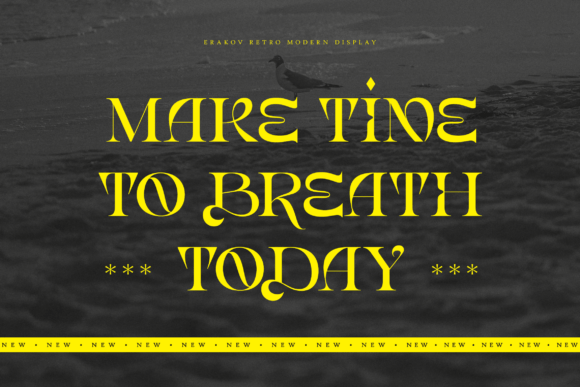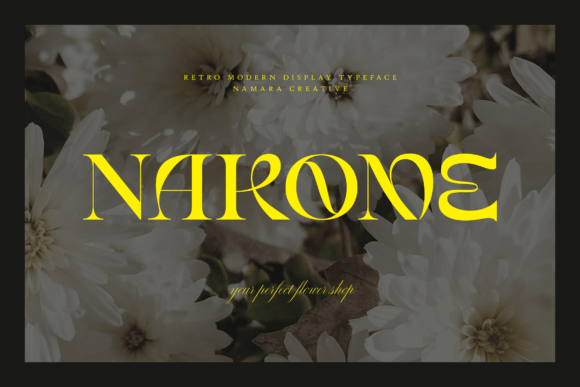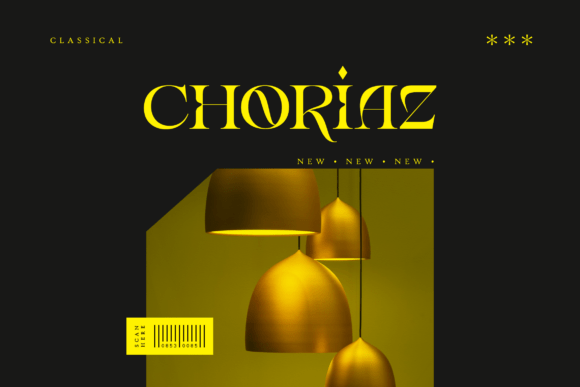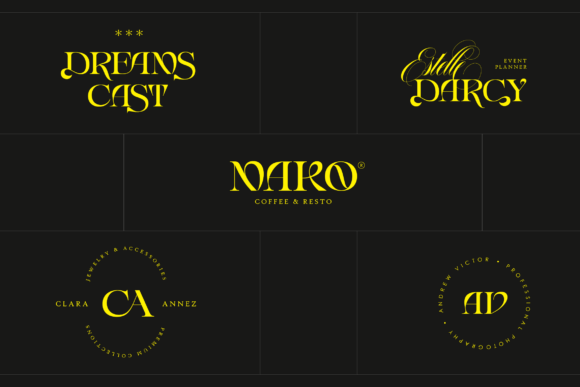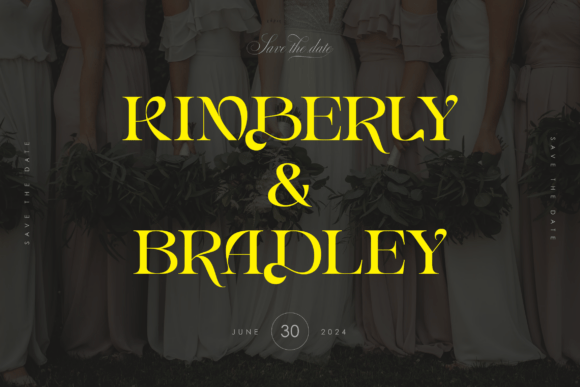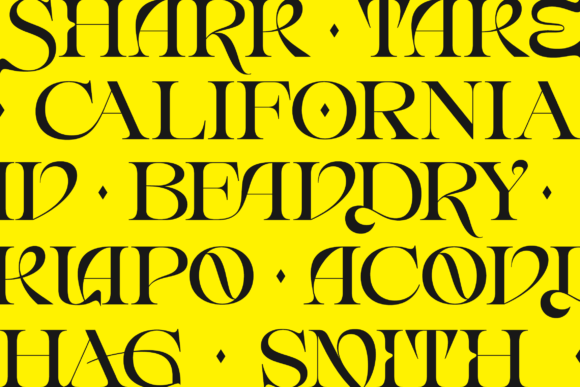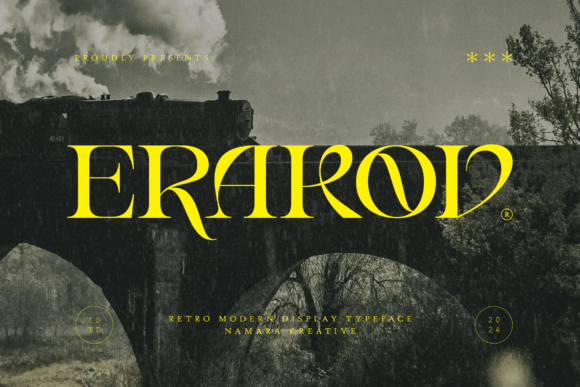
Erakov Font: The Perfect Blend of Retro Charm and Modern Minimalism
In the world of typography, fonts play a crucial role in conveying the tone and personality of a design. With countless options available, finding the perfect font that balances style and functionality can be a daunting task. However, if you’re looking for a typeface that seamlessly blends retro charm with modern minimalism, look no further than the Erakov Font. This stunning serif display font is designed to evoke nostalgia while exuding contemporary elegance, making it the ultimate solution for designers and crafters seeking to create unforgettable designs.
The Essence of Erakov Font
Erakov Font is a masterful creation that encapsulates the essence of retro charm and modern minimalism. Its unique design elements pay homage to the classic typography of the past, while its clean lines and minimalist aesthetic ensure it remains relevant in today’s design landscape. Whether you’re working on a branding project, packaging design, or editorial layout, Erakov Font is the perfect choice for adding a touch of sophistication and style.
Key Features of Erakov Font
- Retro Modern Aesthetic: Erakov Font boasts a distinctive retro modern look that is sure to turn heads. Its classic serif design is infused with a modern twist, making it perfect for designers seeking to create unique and eye-catching designs.
- Versatile and Adaptable: This font is incredibly versatile and can be used across various design projects, from logos and branding materials to packaging and editorial layouts.
- Highly Legible: Despite its ornate design, Erakov Font remains highly legible, even at smaller font sizes. This makes it an excellent choice for body text and captions.
- Extensive Character Set: Erakov Font features an extensive character set, including uppercase and lowercase letters, numbers, and punctuation marks, ensuring you have everything you need to create stunning designs.
Why Choose Erakov Font?
With so many fonts available, why should you choose Erakov Font for your design projects? Here are just a few compelling reasons:
- Unique Design: Erakov Font’s distinctive retro modern aesthetic sets it apart from more traditional fonts, allowing you to create designs that stand out from the crowd.
- Time-Saving: With Erakov Font, you can achieve professional-looking results in a fraction of the time. Its versatility and adaptability mean you can use it across multiple projects, saving you time and effort.
- Elegance and Sophistication: Erakov Font exudes elegance and sophistication, making it perfect for designs that require a touch of refinement and poise.
Design Inspiration with Erakov Font
Erakov Font’s versatility and style make it an excellent choice for a wide range of design projects. Here are some inspiring ways to use this stunning font:
- Branding and Logos: Create memorable logos and branding materials that showcase your brand’s personality and style.
- Packaging Design: Add a touch of sophistication to your packaging designs with Erakov Font’s elegant serif design.
- Editorial Layouts: Use Erakov Font to create stunning editorial layouts that showcase your content in style.
In conclusion, Erakov Font is a game-changing typeface that offers the perfect blend of retro charm and modern minimalism. Its unique design, versatility, and elegance make it an excellent choice for designers and crafters seeking to create unforgettable designs. Whether you’re looking to evoke nostalgia or convey contemporary elegance, Erakov Font is the ultimate solution for achieving that perfect balance. So why wait? Make your designs unforgettable with Erakov Font today!